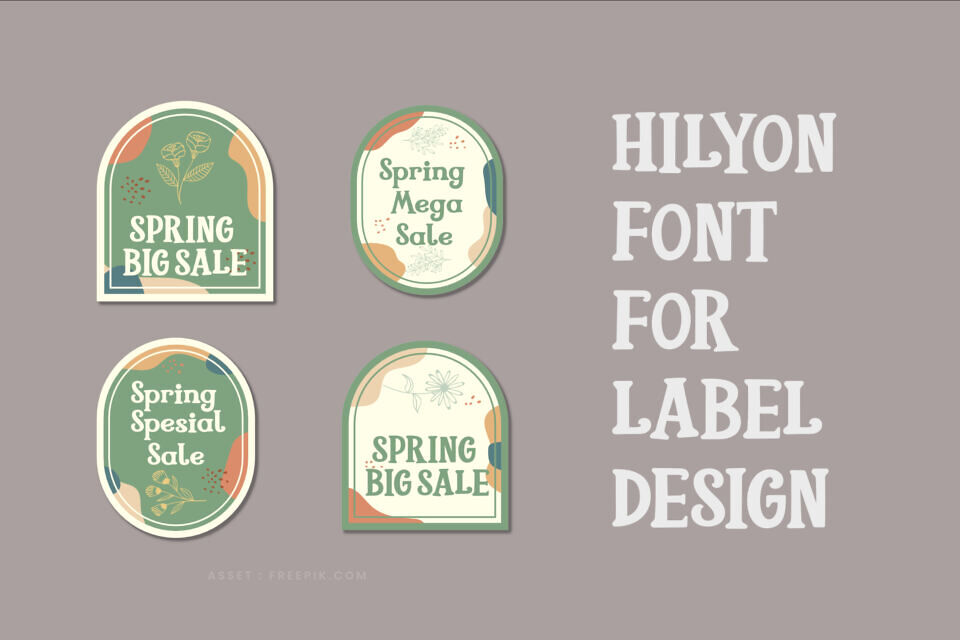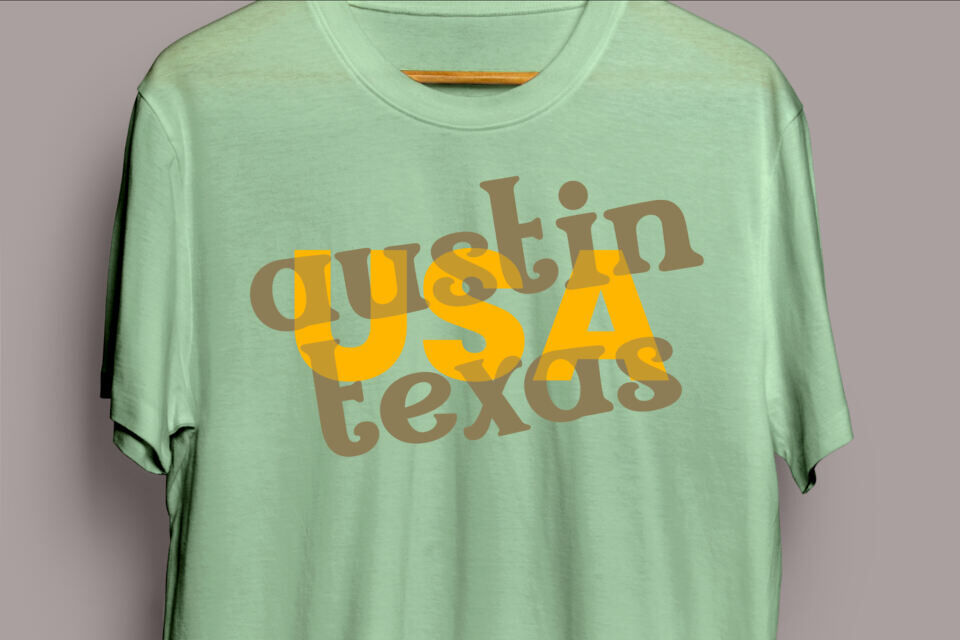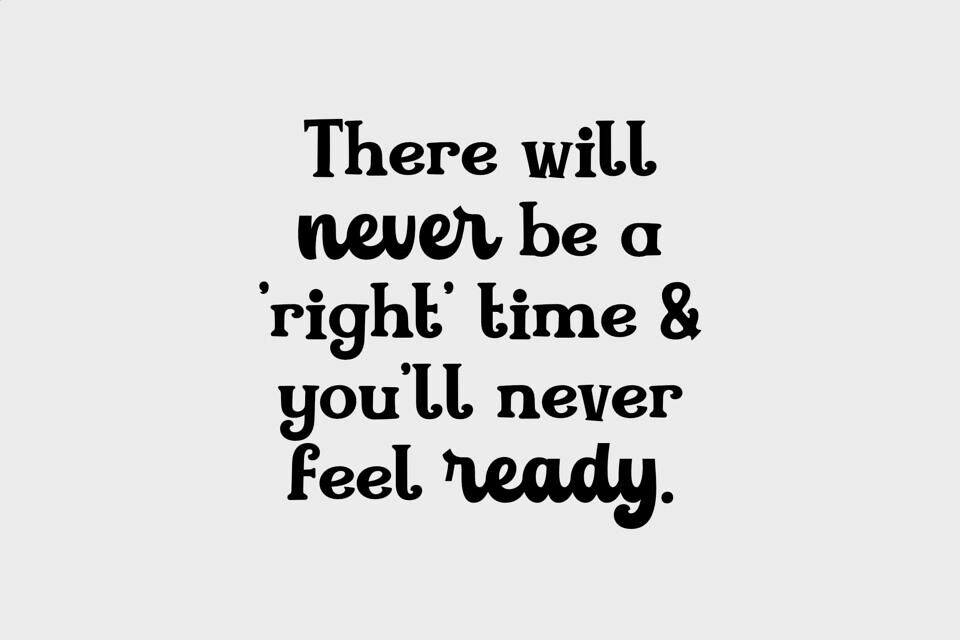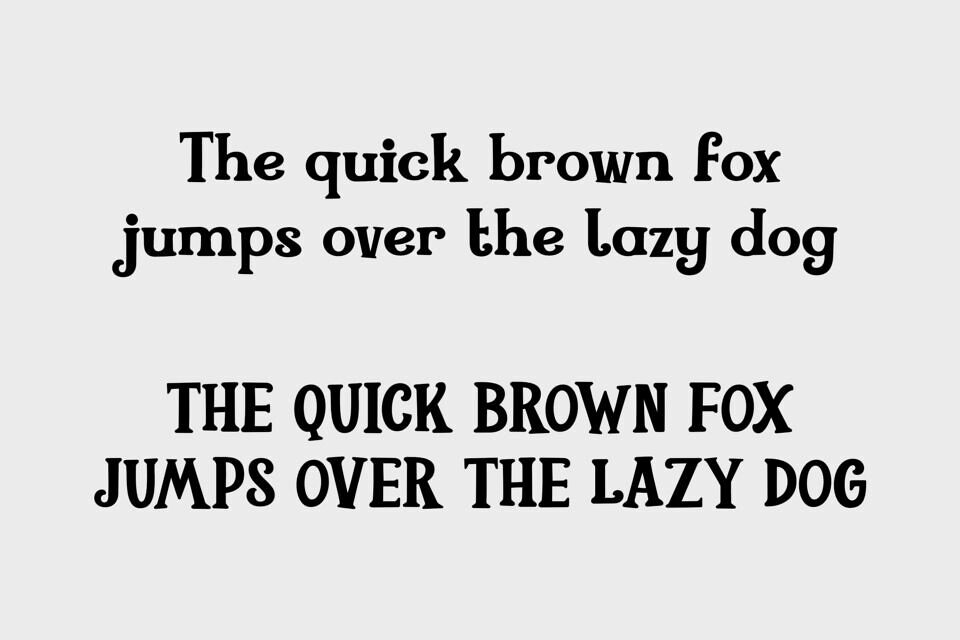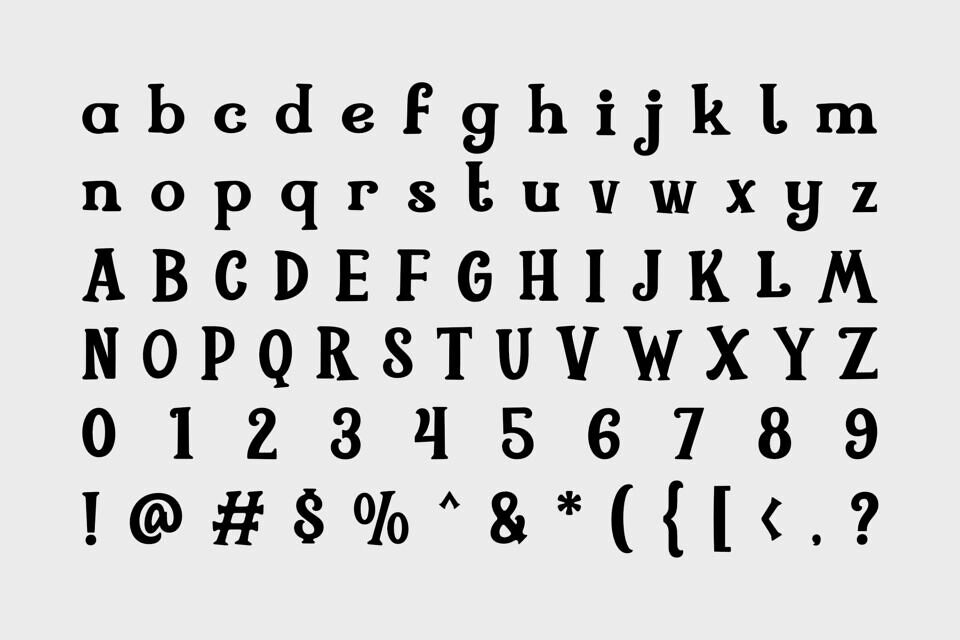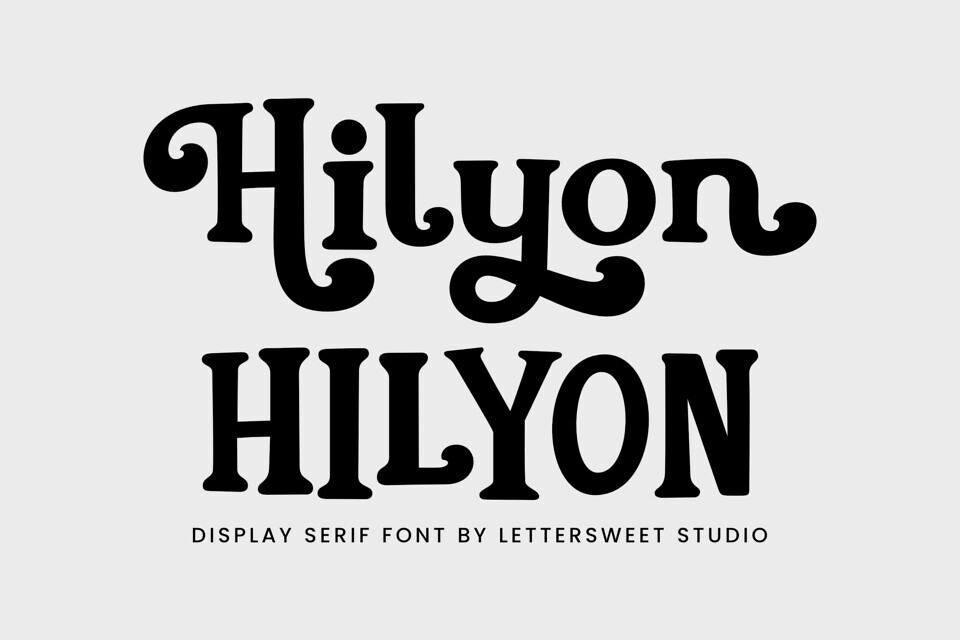
Hilyon Font
Hilyon is a bold and stylish display serif font with a unique blend of vintage charm and quirky elegance. With its distinctive curves, whimsical terminals, and eye-catching letterforms, Hilyon is perfect for designers who want to add personality and flair to their work.
Ideal for logos, headlines, posters, branding, social media graphics, and product packaging, Hilyon stands out in both digital and print formats. It brings a fun, retro-inspired feel while maintaining readability and balance in every character.
Whether you’re crafting a playful brand identity or designing standout merch, Hilyon is your go-to font for adding character, creativity, and a touch of nostalgia.